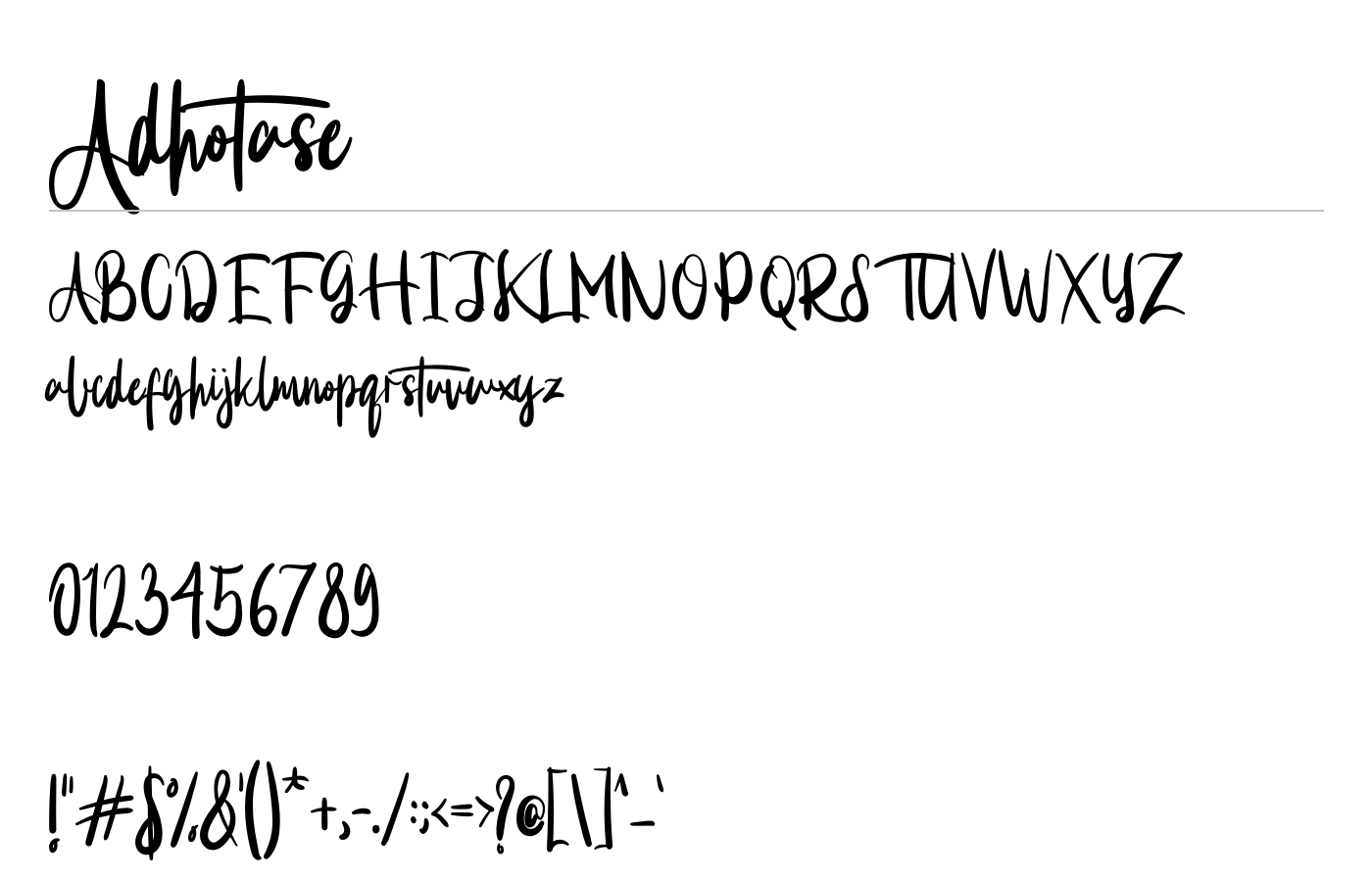
Adhotase is a lively and elegant handwritten script font featuring fluid, slightly irregular strokes that give it a natural, personal touch. Its tall, narrow letterforms with playful loops and moderate contrast make it perfect for creative branding, invitations, or stylish editorial designs where a friendly yet refined feel is desired. This font works well in display uses like logos and headlines, adding a warm and unique character to any project.
Adhotase Font